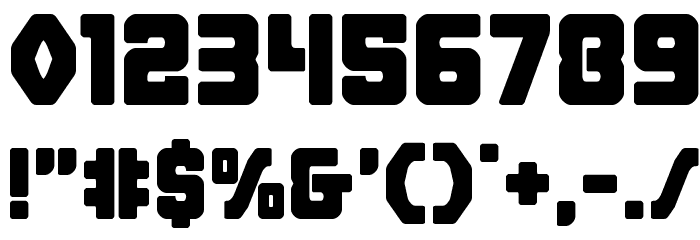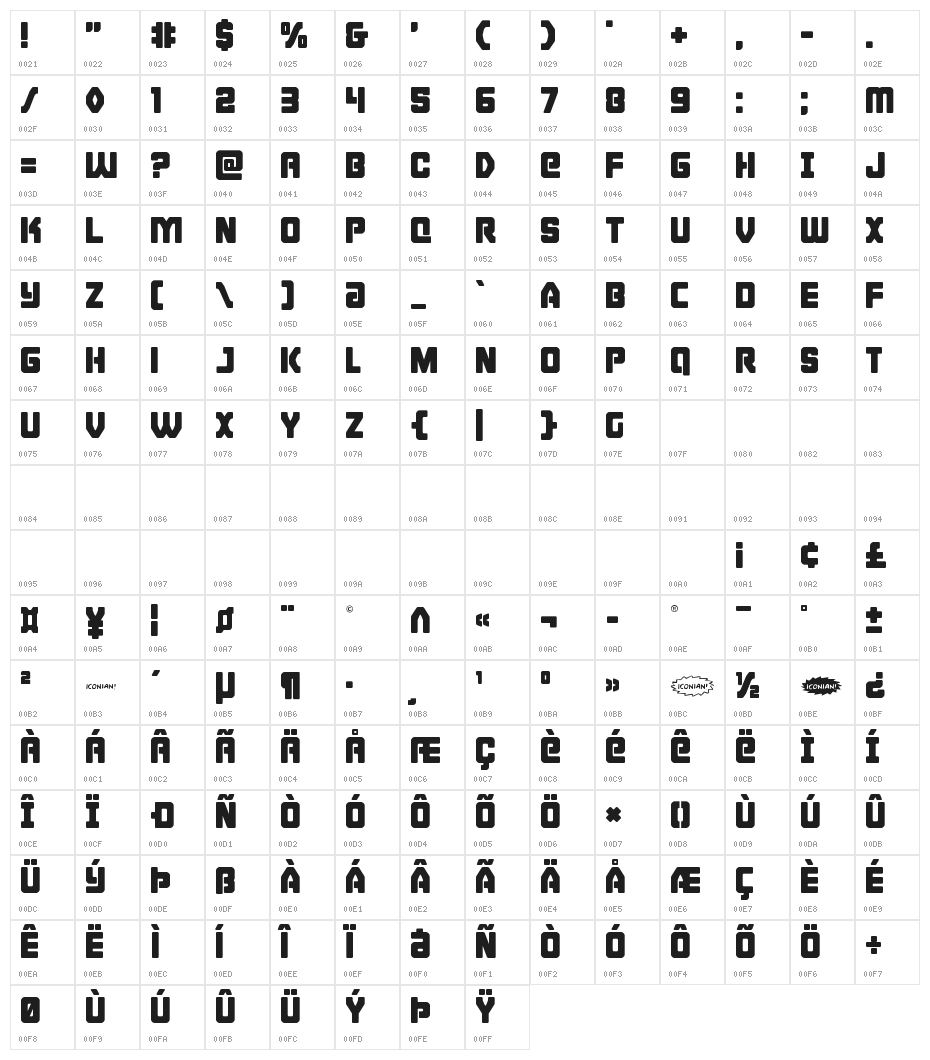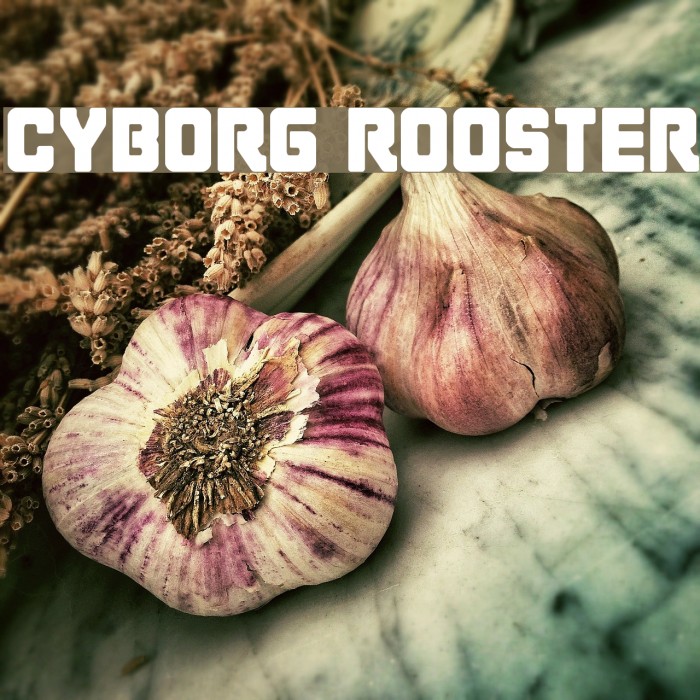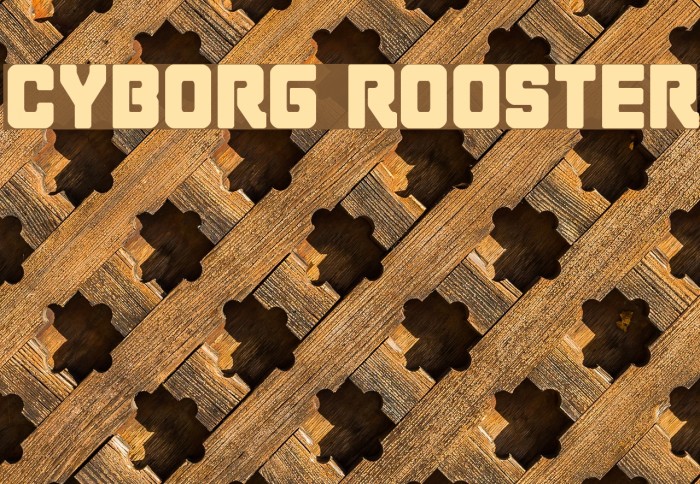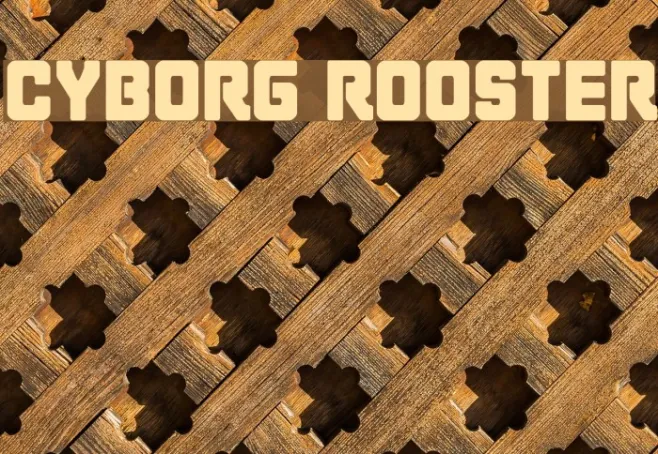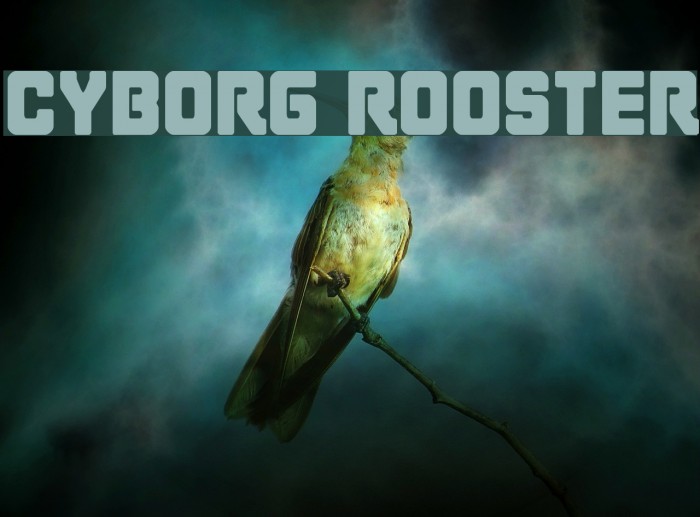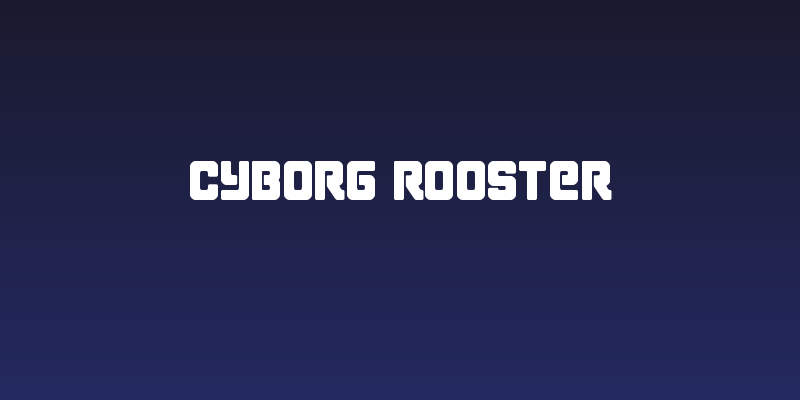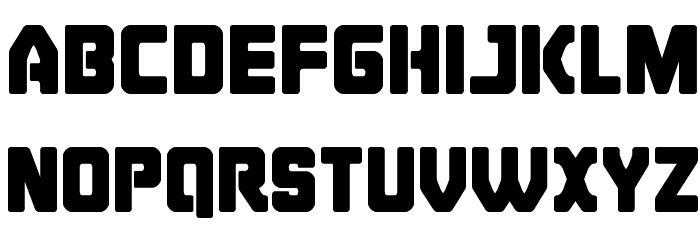
Cyborg Rooster Font
Cyborg Rooster Description
This font features a bold, futuristic design with a distinct geometric structure. The characters are blocky and robust, with rounded edges that soften the overall appearance. The uppercase and lowercase letters maintain a consistent style, emphasizing uniformity and strength. The numerals and special characters follow the same design principles, ensuring a cohesive look across all glyphs. The font's unique style is reminiscent of digital or sci-fi themes, making it stand out in modern design contexts.